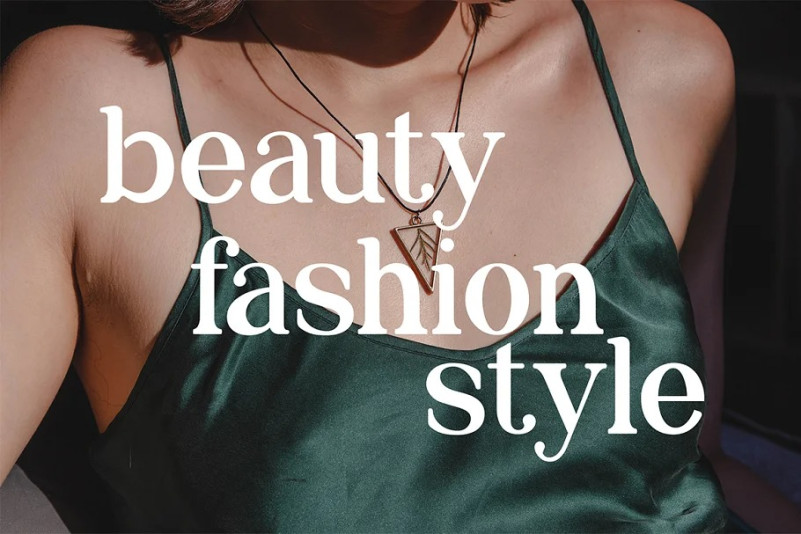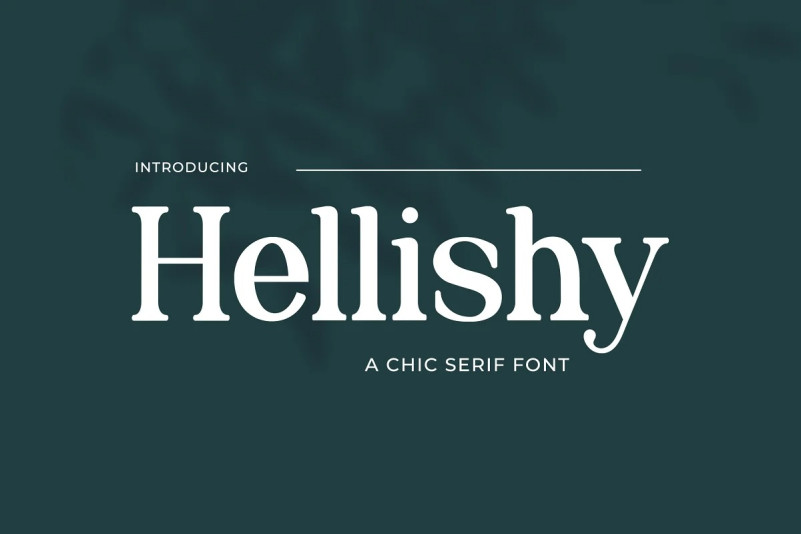
Hellishy Font
Hellishy Font – Chic Serif Font. Modern Serif font that feels beautiful classy, elegant, and modern. This font is ideally suited for a wide variety of projects, such as signature, stationery, logo, wedding, typography quotes, magazine or book covers, website headers, clothing, branding, packaging design, and more. Also, fashion-related branding or editorial design displays both masculine and feminine qualities.